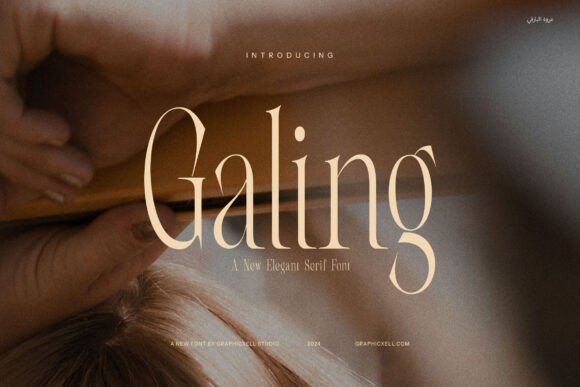
The Galing Font: A Timeless Elegance for Your Designs
I still remember the frustration of working on a project, hours spent searching for the perfect font, only to end up with something that felt off. My client wanted a vintage touch with a modern twist, and I was on a mission to deliver. That’s when I stumbled upon the Galing font, and it instantly became my go-to choice. In this article, I’ll share my love for this stunning typeface, its unique features, and provide a comprehensive guide on how to make the most of it in your designs.
An Honest Review of Galing Font
What I Love About Galing Font
- ✨ Unique letterforms: Galing’s long and thin letterforms give it a refined and graceful look that’s hard to find in other fonts.
- ✅ Vintage elegance: The font’s serifs are inspired by classic typography, adding a touch of sophistication to any project.
- ✨ Modern appeal: The sleek lines and balanced design make Galing perfect for modern designs that demand both style and elegance.
- ✅ Timeless charm: Galing’s blend of vintage and modern elements gives it a timeless appeal that won’t go out of style anytime soon.
While Galing is an exceptional font, there are a few things to keep in mind:
- ⚠️ Legibility at small sizes: Like many elegant fonts, Galing can be a bit tricky to read at very small sizes. It’s best used at larger sizes where its beauty can shine.
- 🤔 Overuse of stylistic alternates: With great power comes great responsibility! Be mindful of overusing the stylistic alternates, as it can make your text look inconsistent.
The Designer Inspiration Behind Galing
The story behind Galing’s creation is one of passion and dedication. Imagine a designer who spent years traveling through Europe, collecting vintage typography specimens and dreaming of creating a font that captures the essence of classic elegance with a modern twist. This designer, fueled by a love for typography and a keen eye for detail, crafted Galing to be more than just a font—it’s an experience.
Q: What makes Galing font unique?
A: Galing’s unique blend of vintage serifs and modern lines, along with its long and thin letterforms, sets it apart from other fonts.
Q: Is Galing suitable for body text?
A: While Galing is elegant and refined, it’s best used for headlines and titles. For body text, consider using a font with better legibility at smaller sizes.